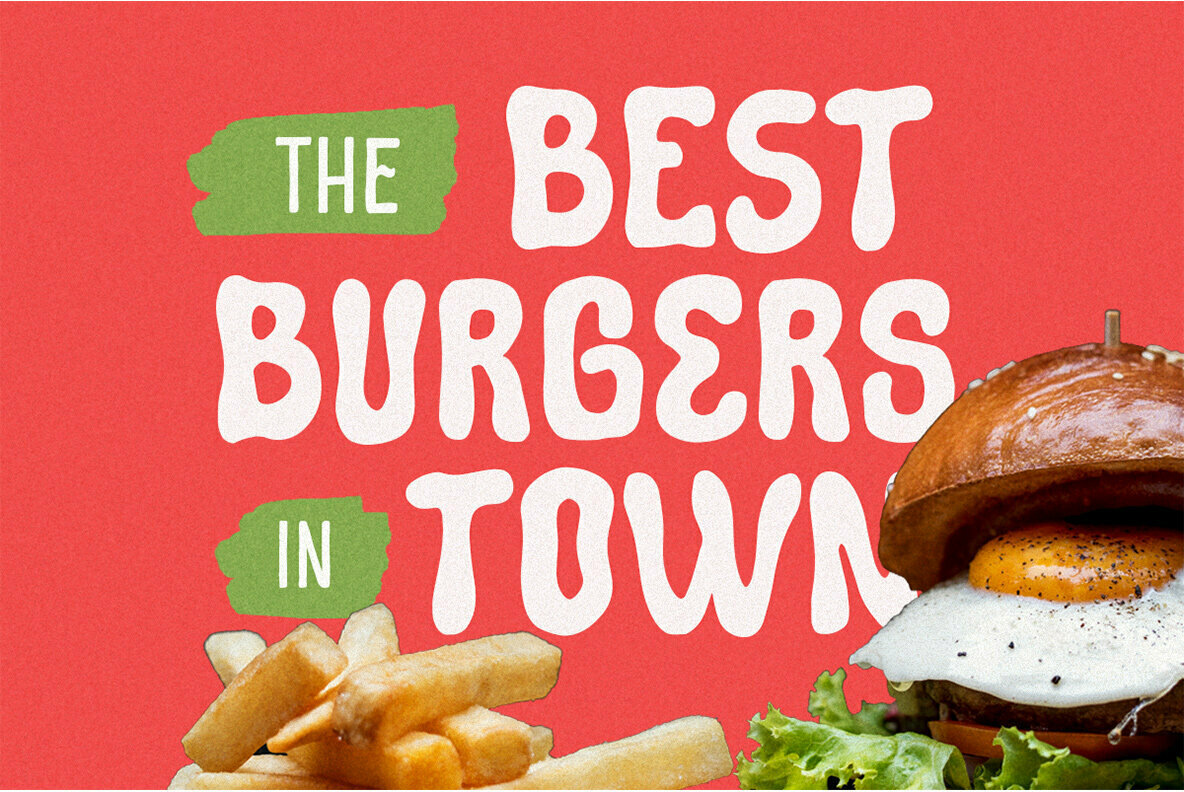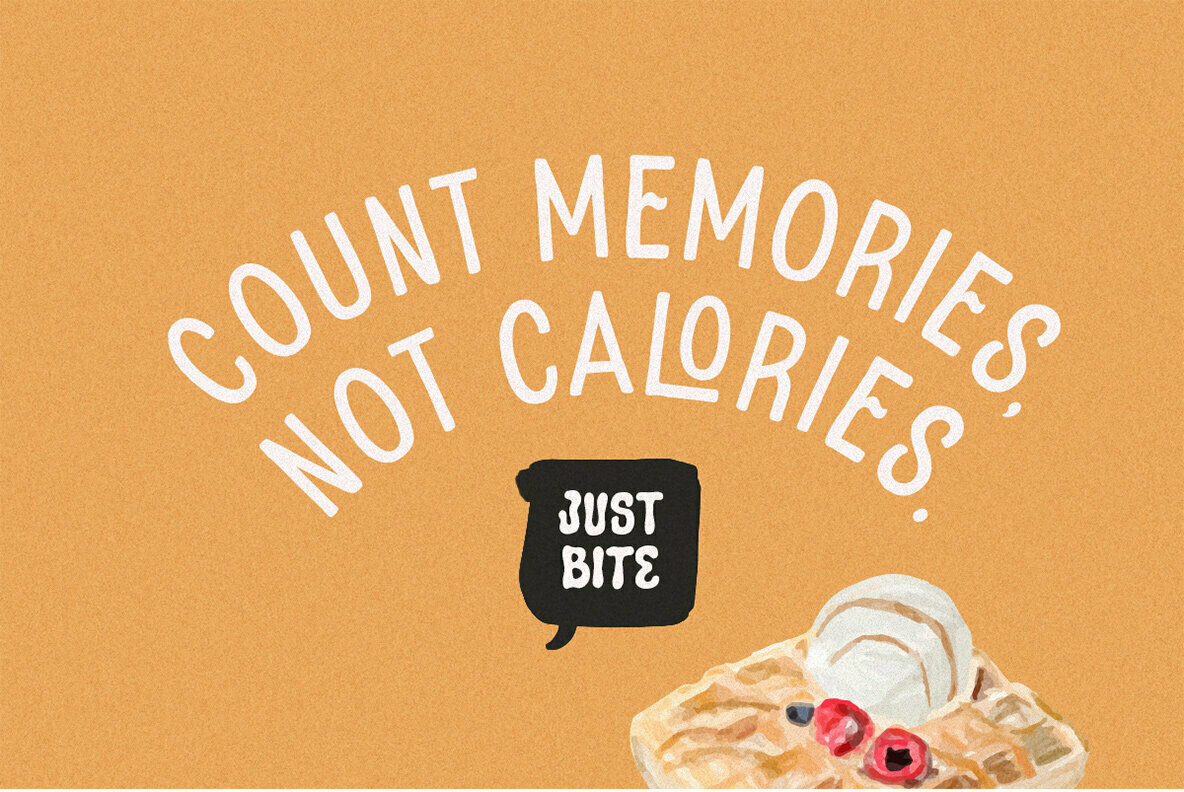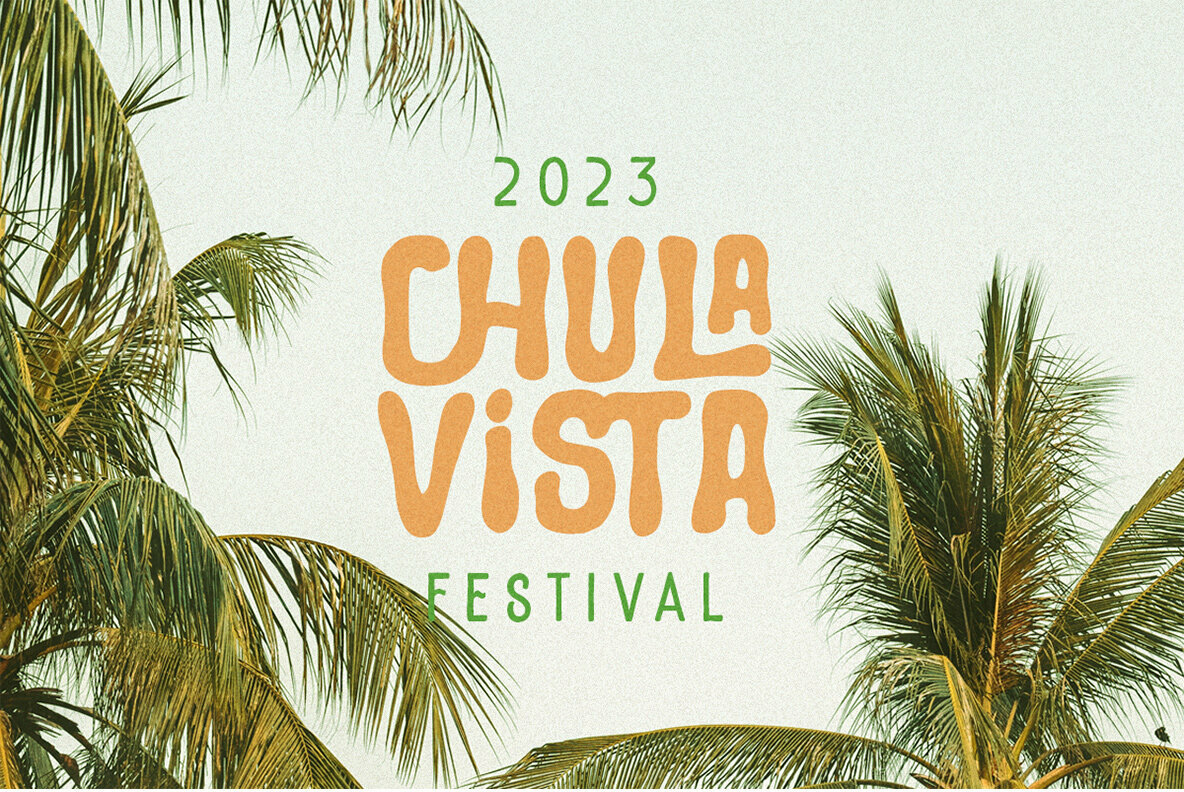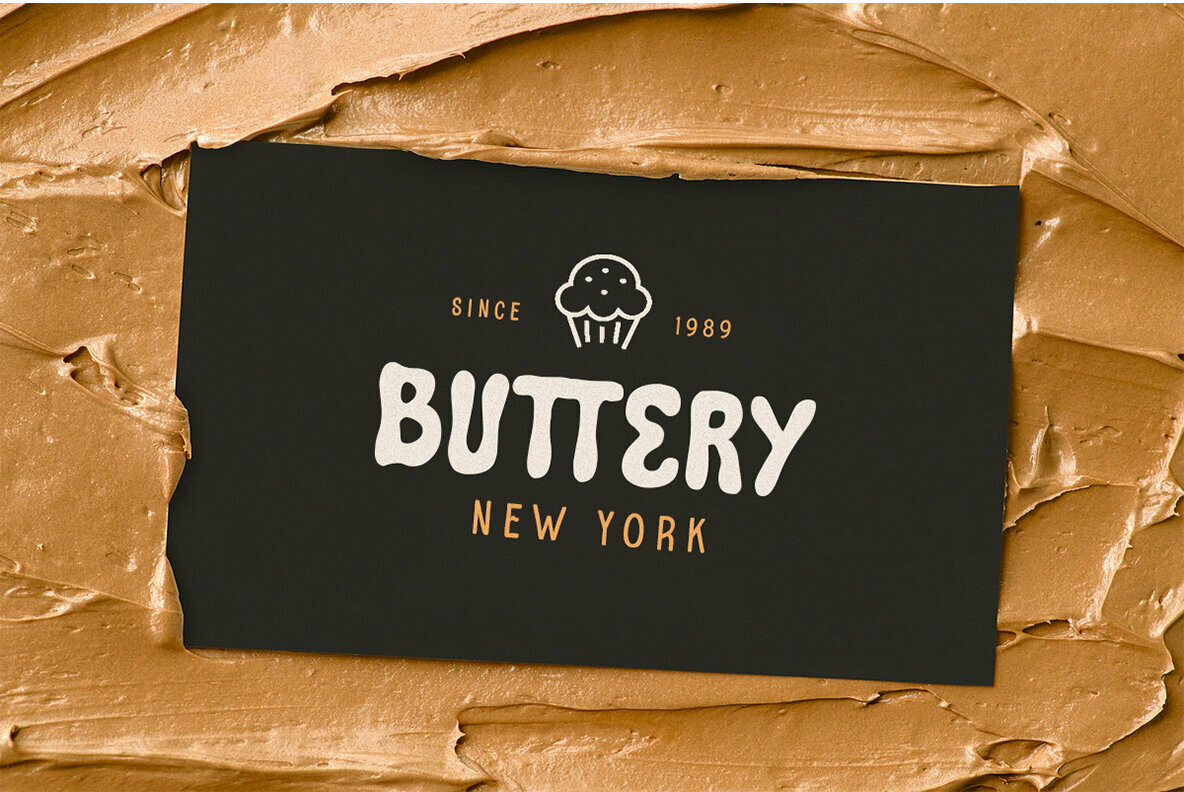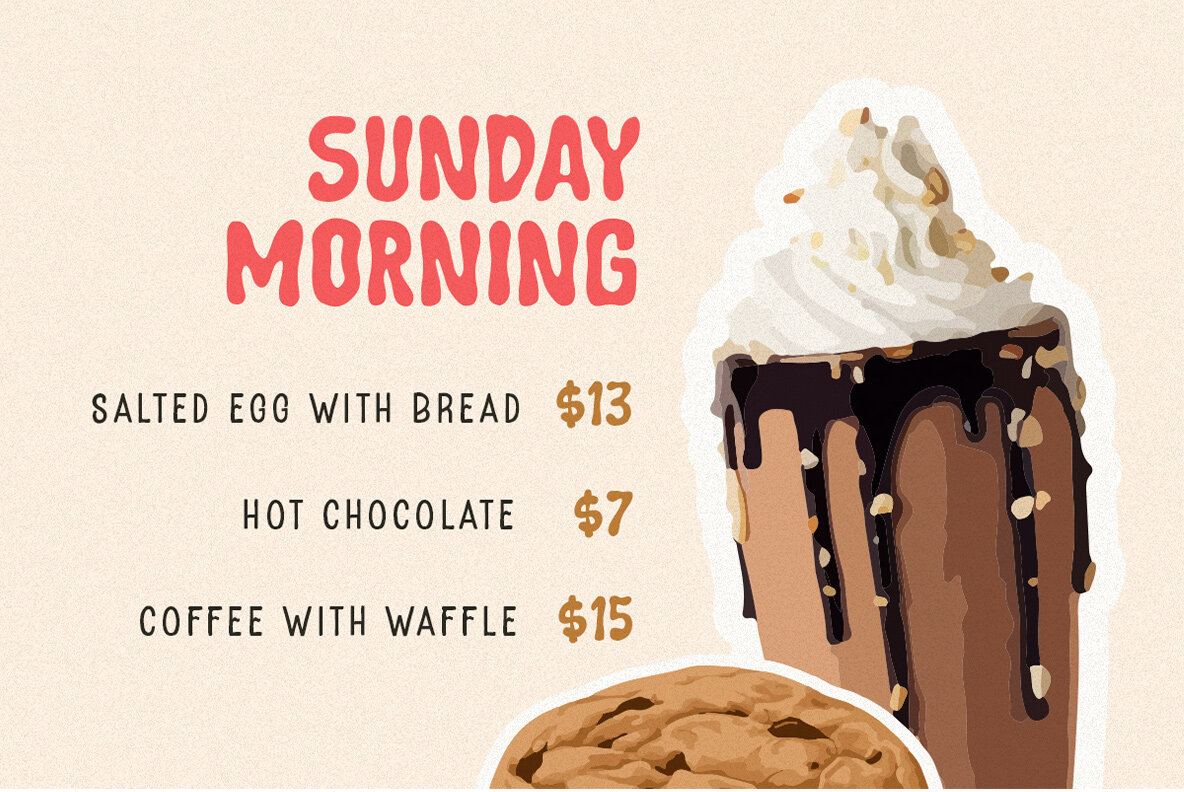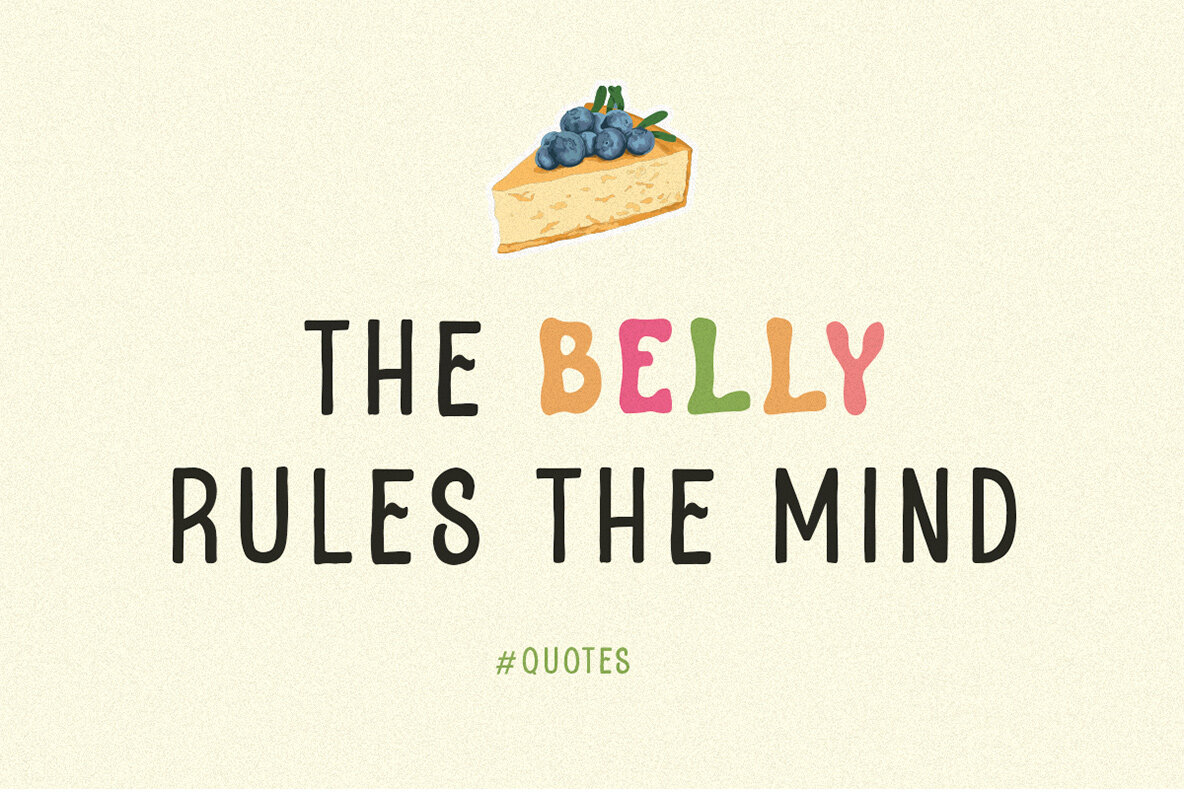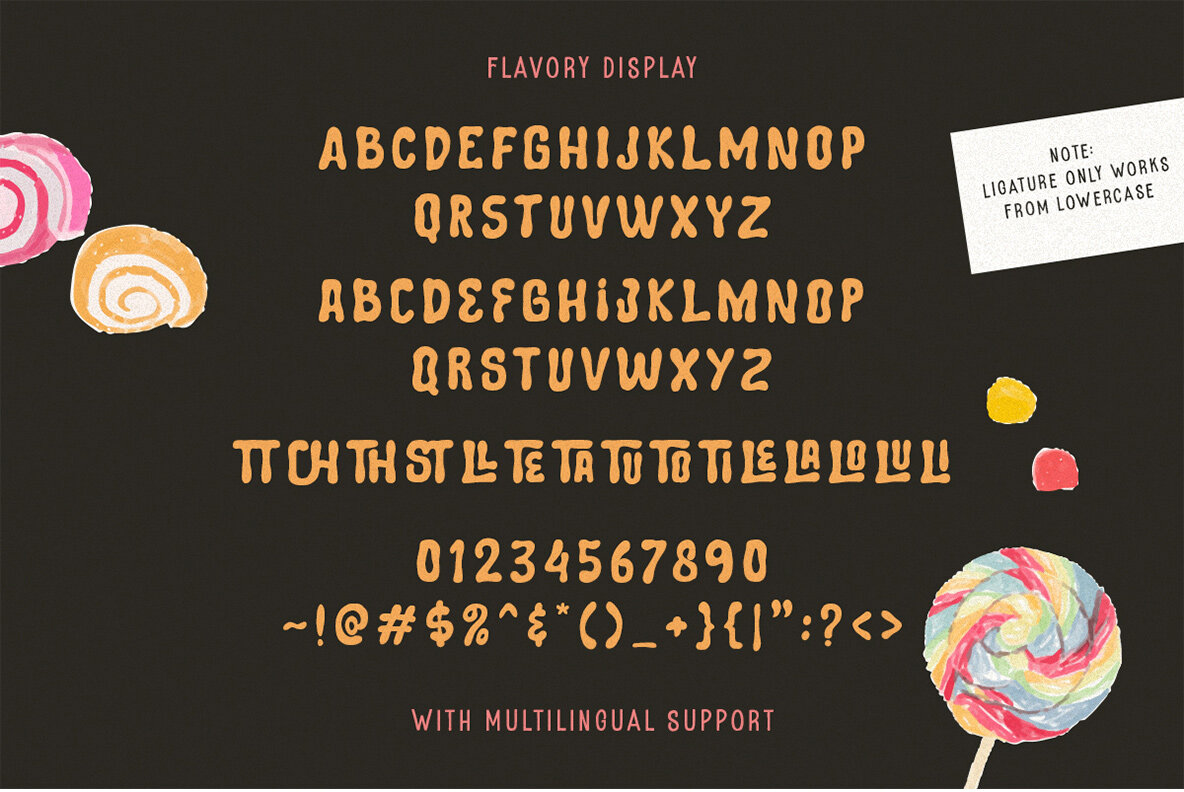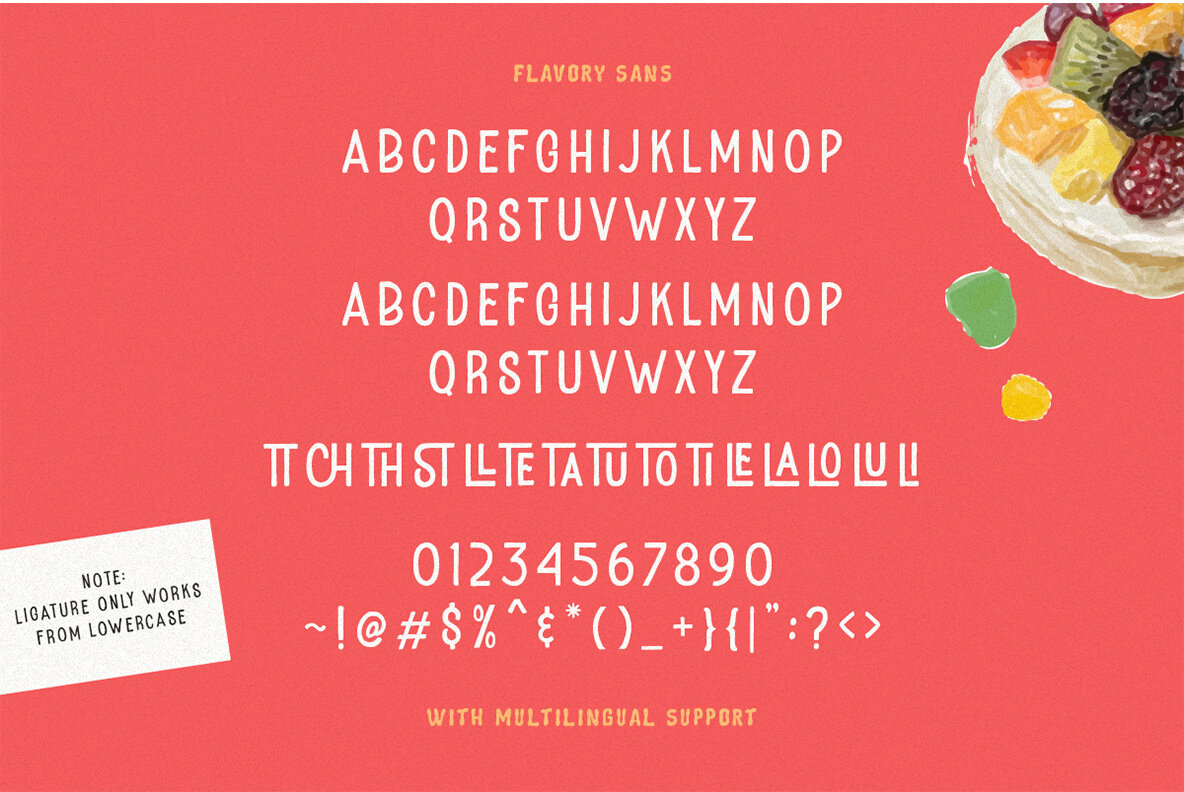
Flavory Font
Flavory by Letterhend Studio offers a delightful blend of fun and functionality. This font duo is designed to capture attention, making it an ideal choice for child-themed projects such as storybooks or educational materials. Beyond its playful charm, Flavory adapts seamlessly to a wide array of uses including invitations, labels, logos, and magazines. From greeting cards to novels and packaging, this font ensures your message stands out without compromising on elegance. For optimal results, we suggest using software that supports OpenType features, such as Adobe applications or Corel Draw, allowing access to the full range of Glyph variations. This enhances creativity and ensures a professional finish to all your projects. For guidance on using OpenType features, you can visit the tutorial section on the Letterhend website.Flavory: Playful Font Duo for Versatile Design